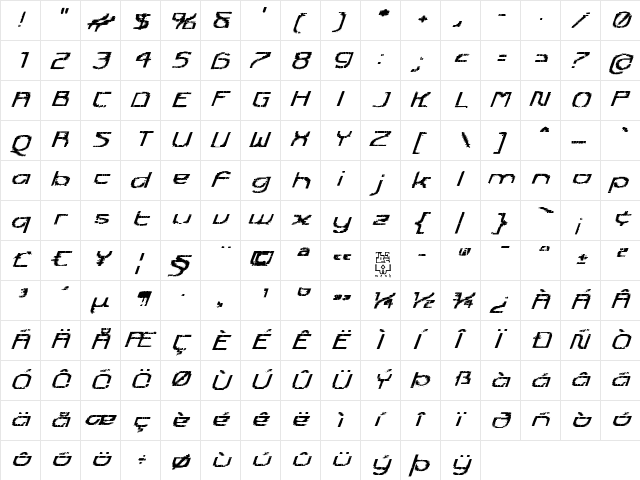
Futurex Transmaat Italic
Design Context for Futurex Transmaat Typeface
Futurex Transmaat channels digital-age aesthetics through its sharp, structured letterforms — ideal for brands that want to signal innovation. Its italic angle brings a sense of urgency and motion to the letterforms.